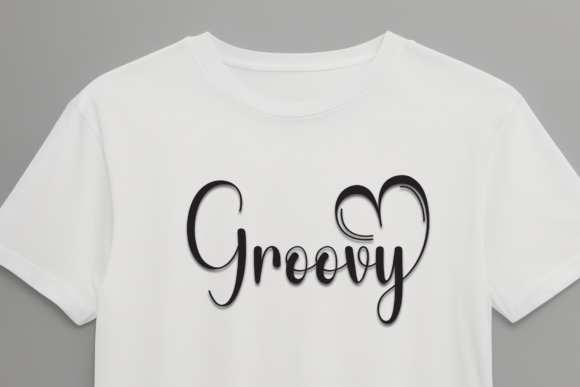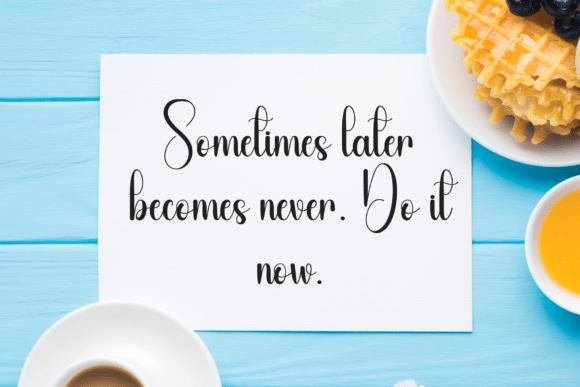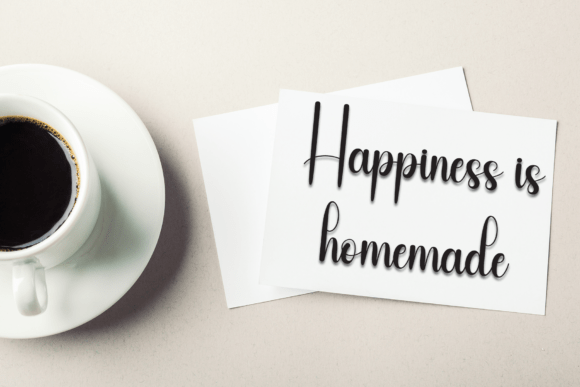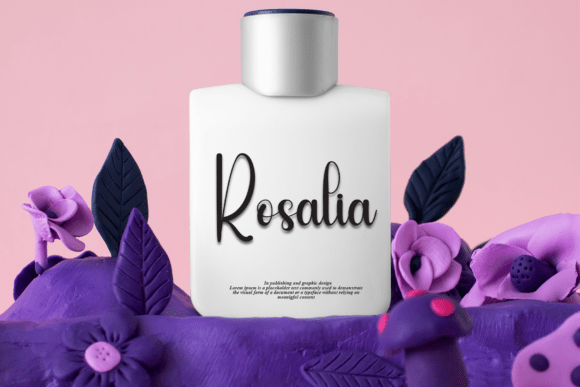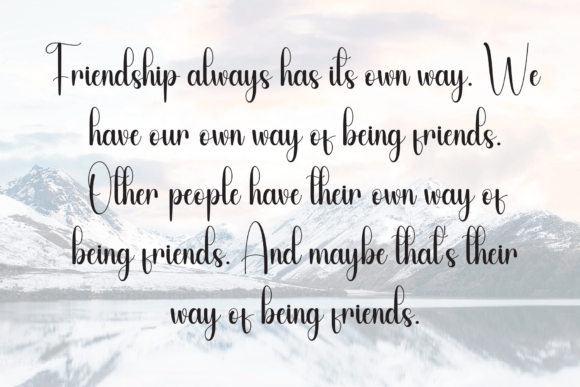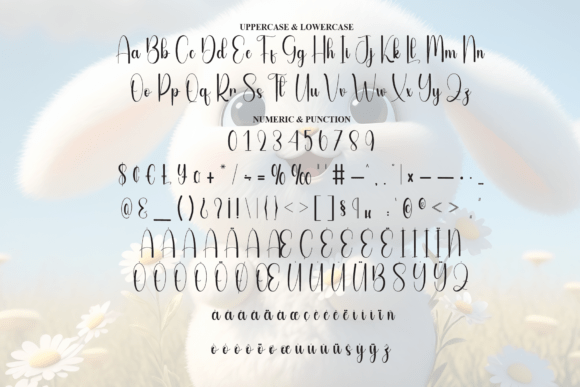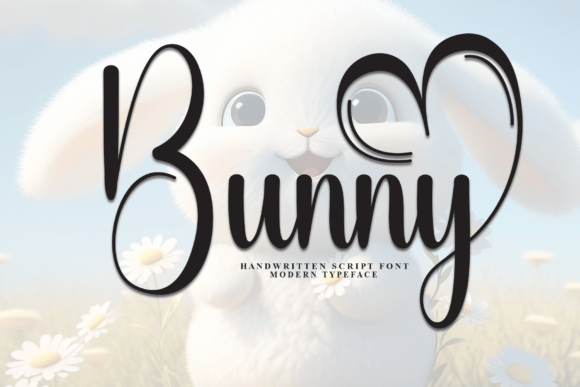
Bunny Font: The Ultimate Choice for Elegant and Playful Designs
Are you a designer or crafter looking for a font that can add a touch of elegance and playfulness to your projects? Look no further than Bunny Font, a stylish handwritten script font that captures the essence of sophistication and whimsy. With its flowing curves and natural rhythm, Bunny Font is the perfect choice for invitations, branding, social media, and any other project that requires a personal and charming touch.
The Characteristics of Bunny Font
Bunny Font is a unique and versatile font that boasts a range of characteristics that make it stand out from the crowd. Its flowing curves and natural rhythm give it a sense of movement and fluidity, making it perfect for designs that require a sense of dynamism. The font’s elegant and refined strokes add a touch of sophistication, while its playful and whimsical undertones bring a sense of fun and creativity.
Uses of Bunny Font
Bunny Font is a versatile font that can be used in a variety of contexts, including:
- Invitations: Whether you’re planning a wedding, birthday party, or baby shower, Bunny Font is the perfect choice for creating beautiful and elegant invitations that set the tone for your special event.
- Branding: Bunny Font can add a touch of personality and whimsy to your brand’s identity, making it perfect for businesses that want to stand out from the crowd.
- Social Media: Use Bunny Font to create eye-catching social media graphics, posts, and stories that showcase your brand’s personality and style.
- Crafting: Whether you’re a crafter, maker, or DIY enthusiast, Bunny Font is a great choice for adding a personal touch to your projects, such as handmade cards, gift tags, and other paper crafts.
Benefits of Using Bunny Font
So why choose Bunny Font for your design projects? Here are just a few benefits of using this stylish and versatile font:
- Elegance: Bunny Font adds a touch of elegance and sophistication to any project, making it perfect for designs that require a sense of refinement.
- Playfulness: The font’s playful and whimsical undertones bring a sense of fun and creativity to any project, making it perfect for designs that require a sense of personality.
- Warmth: Bunny Font has a warm and inviting feel that makes it perfect for designs that require a sense of comfort and approachability.
- Versatility: The font’s versatility makes it suitable for a wide range of design projects, from invitations and branding to social media and crafting.
Tips for Using Bunny Font
Here are a few tips for getting the most out of Bunny Font:
- Use it as a headline font: Bunny Font is perfect for use as a headline font, where its elegant and playful characteristics can really shine.
- Pair it with contrasting fonts: Pair Bunny Font with contrasting fonts, such as bold sans-serif fonts, to create visual interest and add depth to your designs.
- Experiment with colors: Don’t be afraid to experiment with different colors and textures to add an extra layer of personality to your designs.
In conclusion, Bunny Font is a stylish and versatile handwritten script font that captures the essence of elegance and playfulness. With its flowing curves and natural rhythm, it’s the perfect choice for designers and crafters looking to add a personal and charming touch to their projects. Whether you’re creating invitations, branding, social media graphics, or handmade crafts, Bunny Font is sure to bring warmth, sophistication, and creativity to any project.